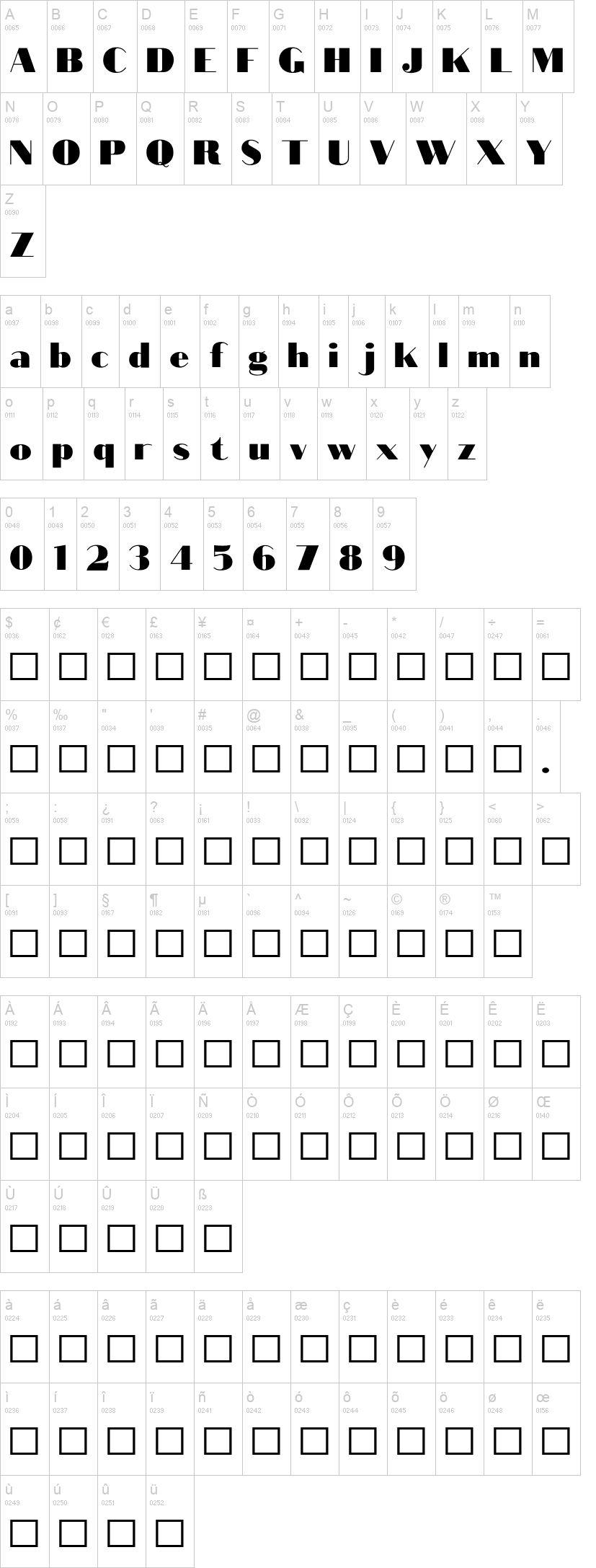
Bold ish
Bold ish de GlitzyGrapix
Bold-ish is an elegant sans serif font. Its boldness, elegance and simplicity make this font look absolutely fabulous.
This font contains upper & lowercase characters, all punctuation and numerals.